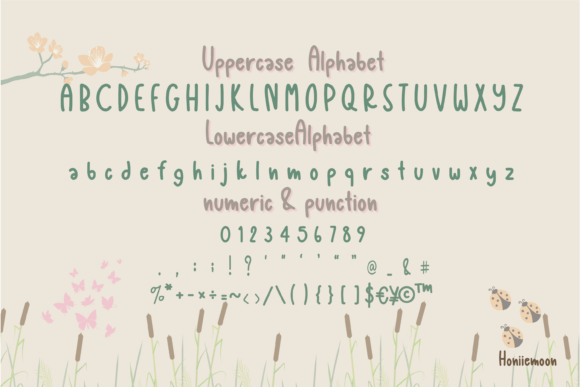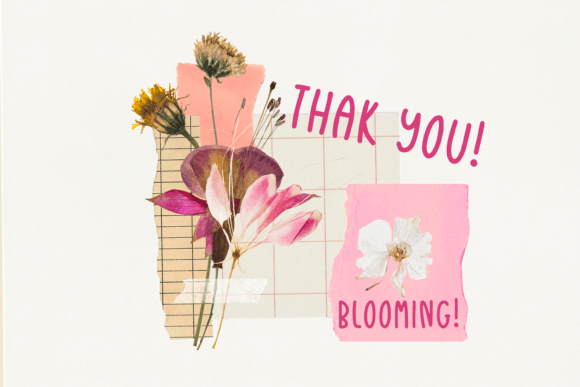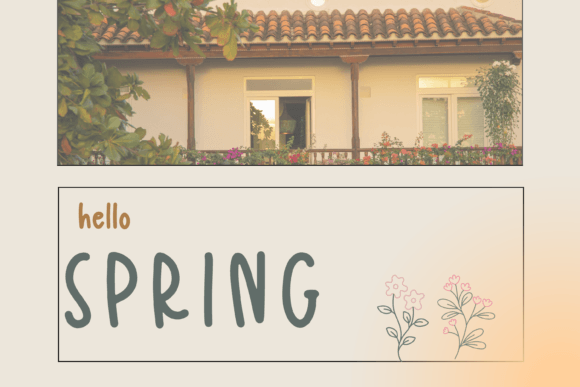
Garden Font
Garden is a cute handwritten font. It looks both fun and jolly and it will enhance each of your designs. The only limit is your imagination. Add this adorable and friendly font to each of your creative ideas and notice how it makes them come alive!